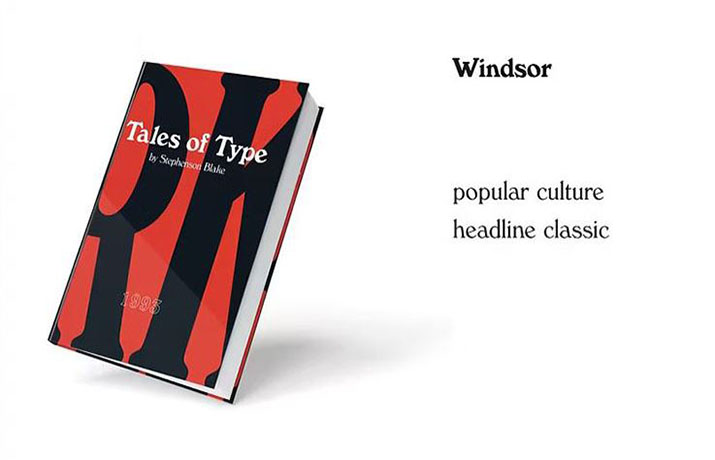
Windsor Font is a serif typeface that is an unusual design cut by Stephenson Blake in 1905. It was designed by Stephenson Blake and published by URW Type Foundry.
This font letter has a unique personality that comes with heavy rounded serifs and strong diagonal stress. Capitals M and W are widely splayed, and P and R have very large upper bowls.
The overall effect is one of friendliness and warmth. Use it for advertising, on posters, banners, signs, titles, book covers, PowerPoint slides, and for general display work.
- It is highly appropriate for a wide range of purposes, including branding projects, logo creation, social media posts, advertisements, product packaging, product designs, labels, branding, YouTube thumbnails, social media banners, book covers, magazine covers, web content, posters, headers, titles, flyers, cards, signs, company names, stationery, cards, and any other project that requires high readability.